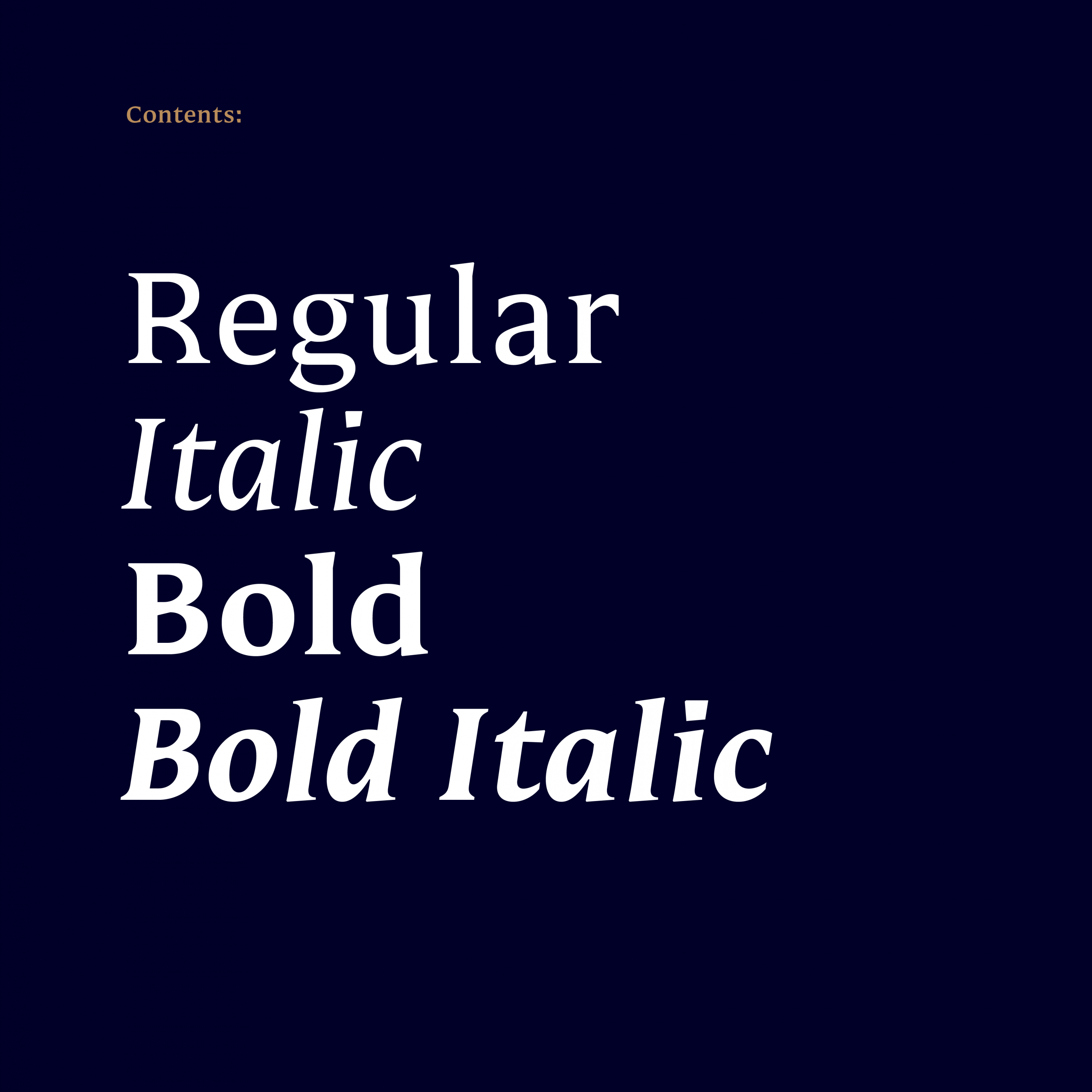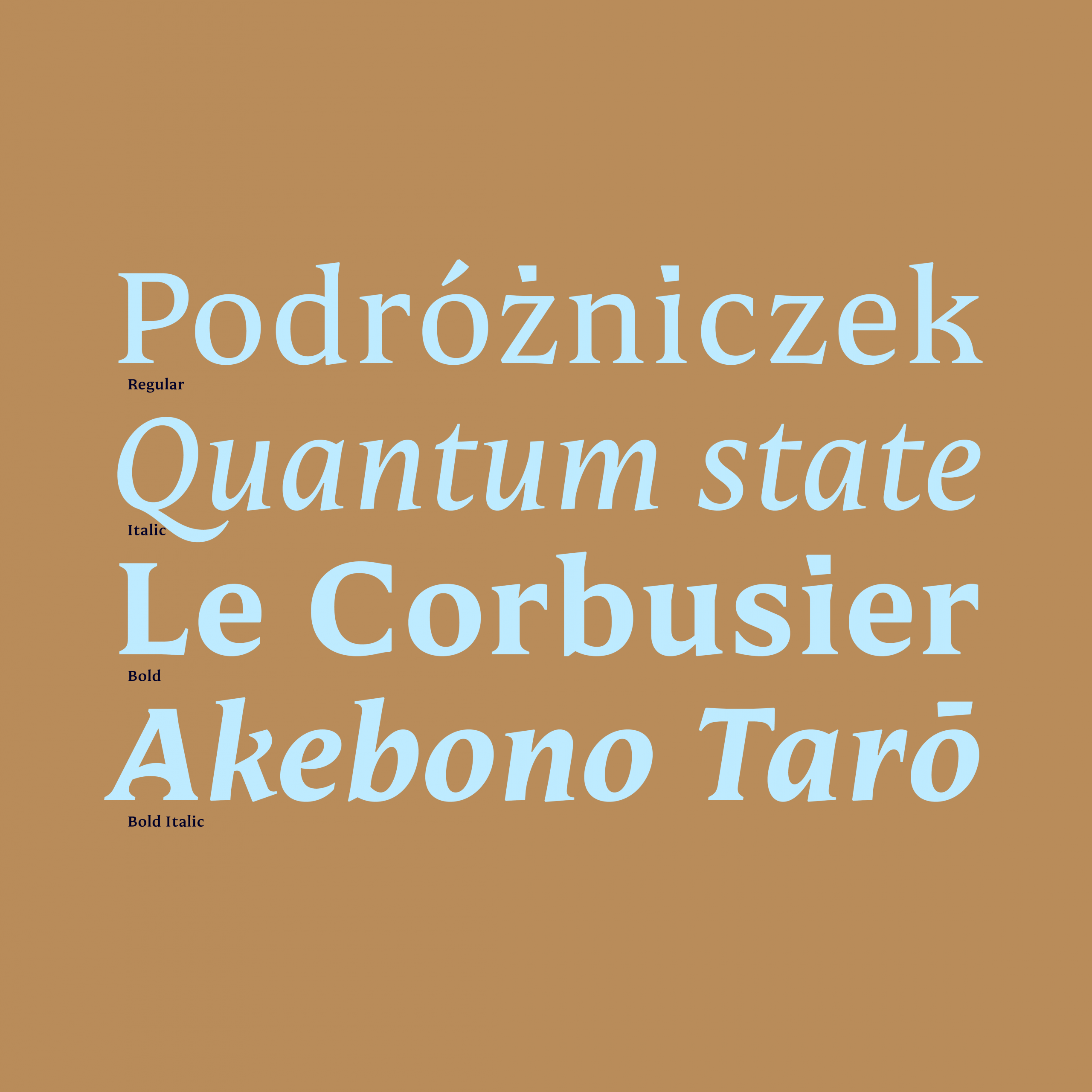
Mestiza Text is the body text version of the Mestiza system. Ideal for editorial design and branding, it includes over 900 multilingual glyphs, Small Caps, ligatures, alternates, symbols, and six numeral styles. The family features 12 styles—six romans and matching italics—offering a refined and flexible typographic system.